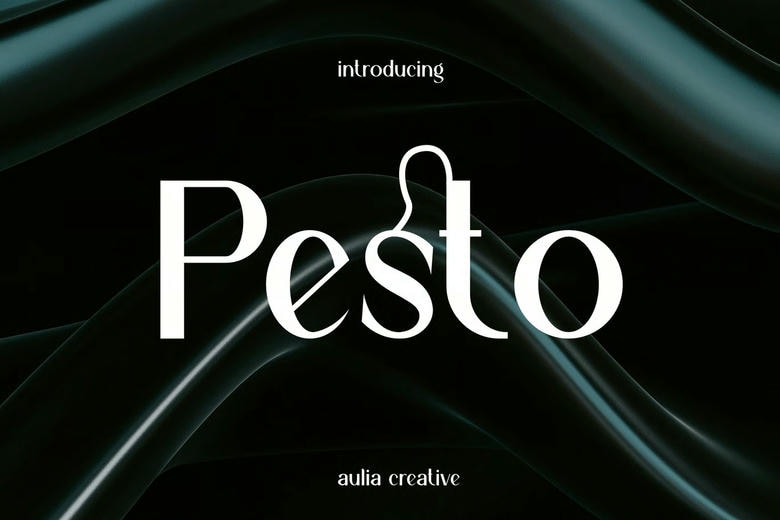
Pesto Font
Pesto Font is a bold and modern sans-serif display font that adds character to any project. Its clean shapes and striking look make it a great choice for logos, branding, posters, packaging, headlines, and other visual designs. Its strong style gives your work a confident, memorable look while still feeling sleek and professional.
Pesto Sans Serif Font